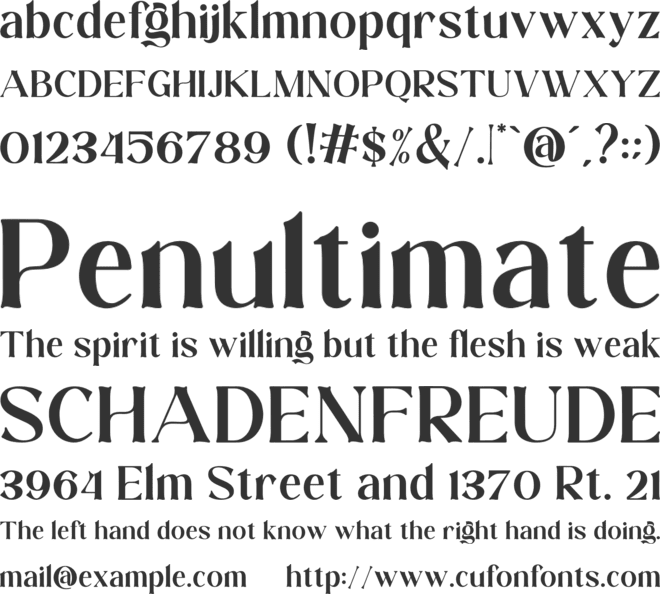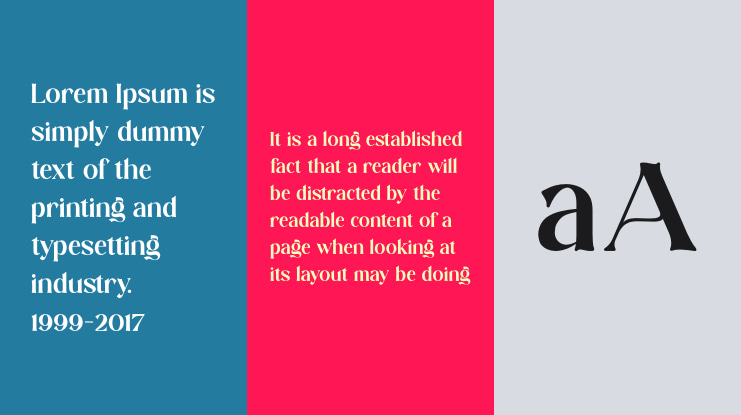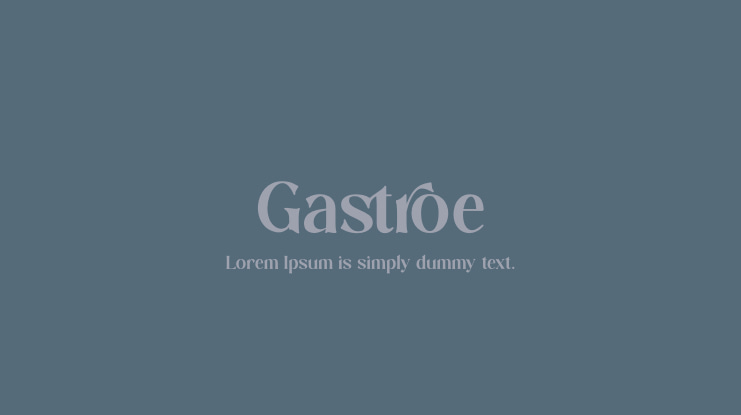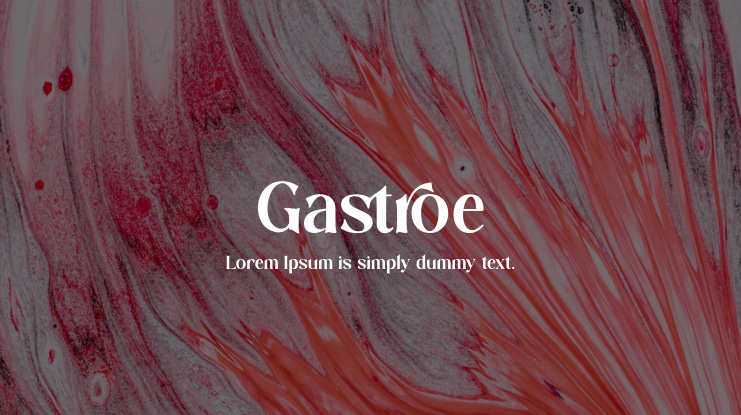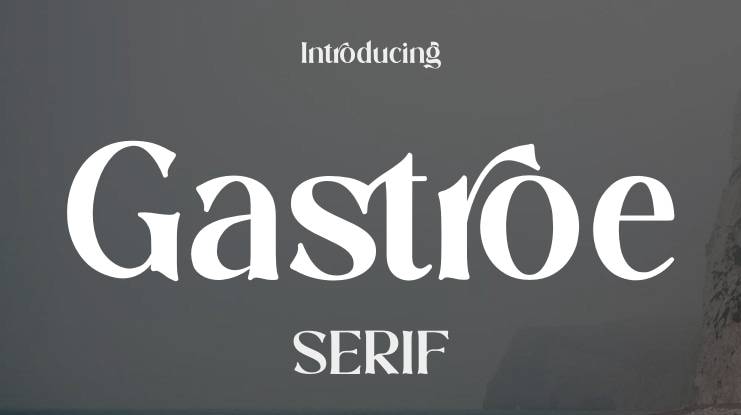
Gastroe Font
Gastroe is a retro, vintage display font that exudes an old-world charm while still maintaining a stylish appeal. It features several stylistic ligatures that can be utilized to enhance its unique aesthetic. The font itself is clean and possesses a sense of nostalgia.